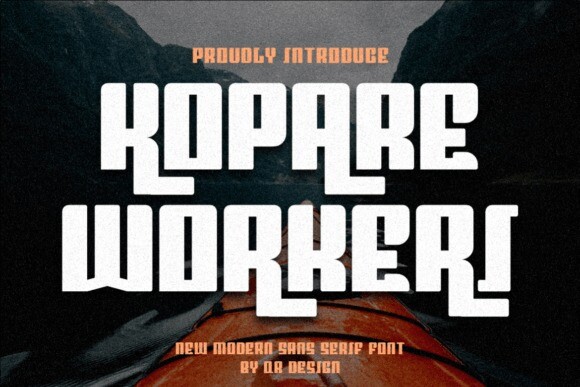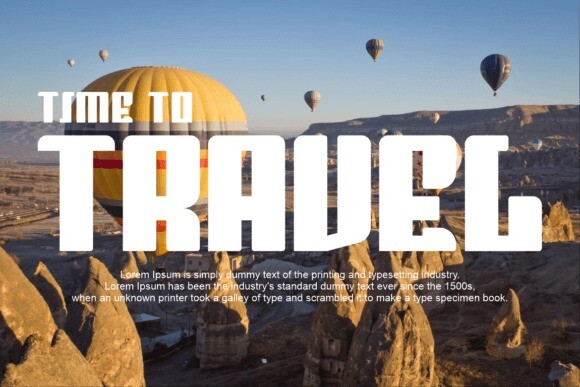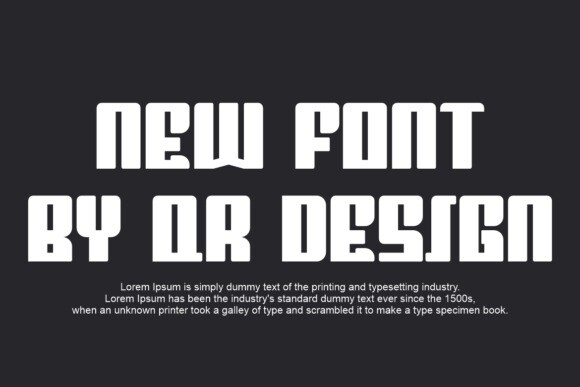
Kopare Workeri Font
Kopare Workeri is a cool, bold, easy-to-read display font. No matter the topic, this font will be an incredible asset to your fonts’ library, as it has the potential to elevate any creation.